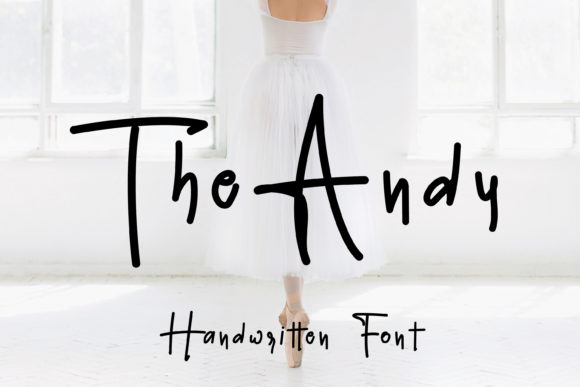
Unleash your creativity with The Andy Font, a script font family that dances across the page with its sweet and friendly charm. Inspired by the beauty of handwritten notes, this font captivates with its natural and unique style, adding a touch of warmth and personality to your designs.
Picture the elegance of handwritten letters gracefully flowing together, creating a visual symphony that dances before your eyes. The Andy Font invites you on a journey of self-expression, empowering you to transform your ideas into captivating visuals.
Dive into a world of endless possibilities, where The Andy Font becomes your trusted companion in crafting logos that leave an unforgettable impression. Its charm breathes life into branding projects, effortlessly elevating your visual identity to new heights.
Transport your social media presence to a new realm of engagement, where every post and story radiates with a unique, hand-crafted touch. Let The Andy Font be your secret weapon in capturing hearts and minds, leaving a trail of appreciation in its wake.
Unleash your inner artist and embark on crafty DIY projects infused with the magic of The Andy Font. From personalized cards and invitations to handmade gifts and home décor, this font weaves a tapestry of creativity, turning ordinary objects into extraordinary works of art.
With The Andy Font as your creative partner, you'll discover a symphony of visual expression, where your imagination takes center stage. Embrace the beauty of handwritten elegance and let your designs bloom with personality. Download The Andy Font today and embark on a journey of endless creative possibilities.